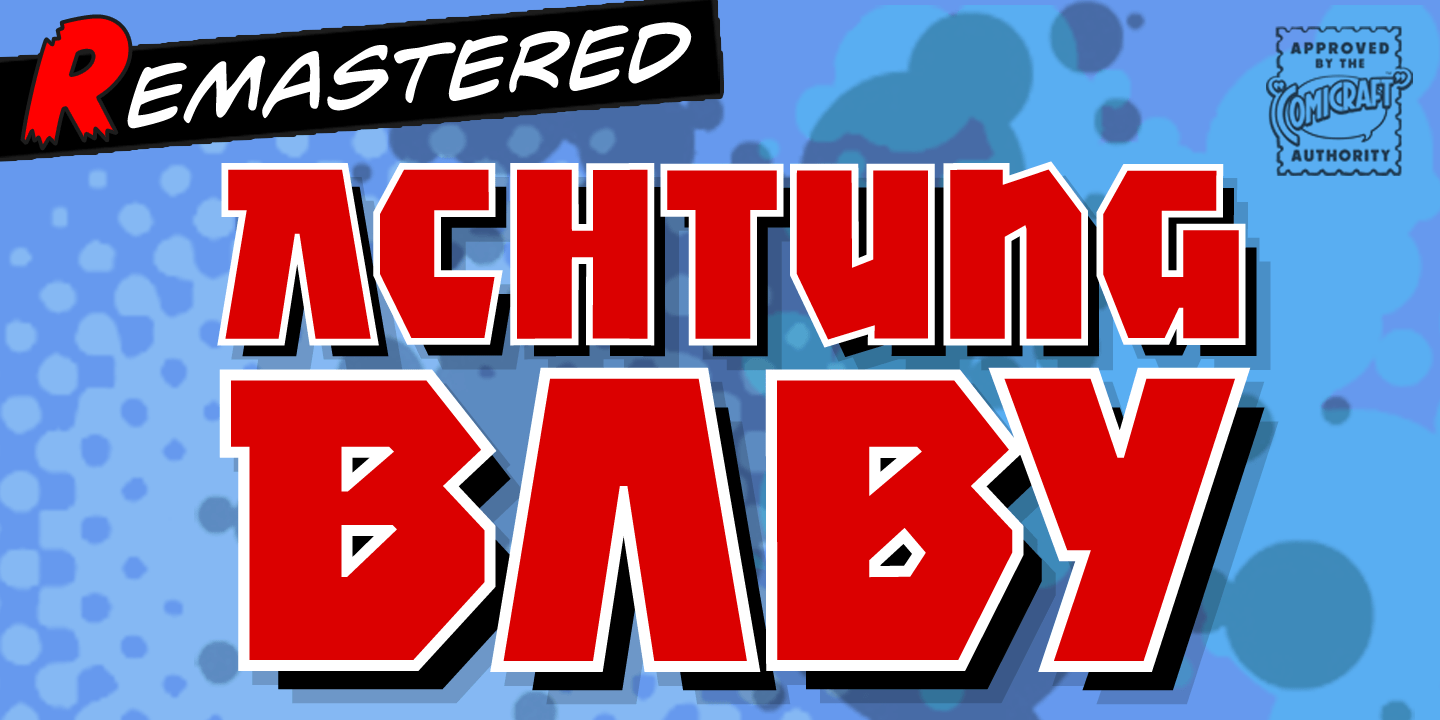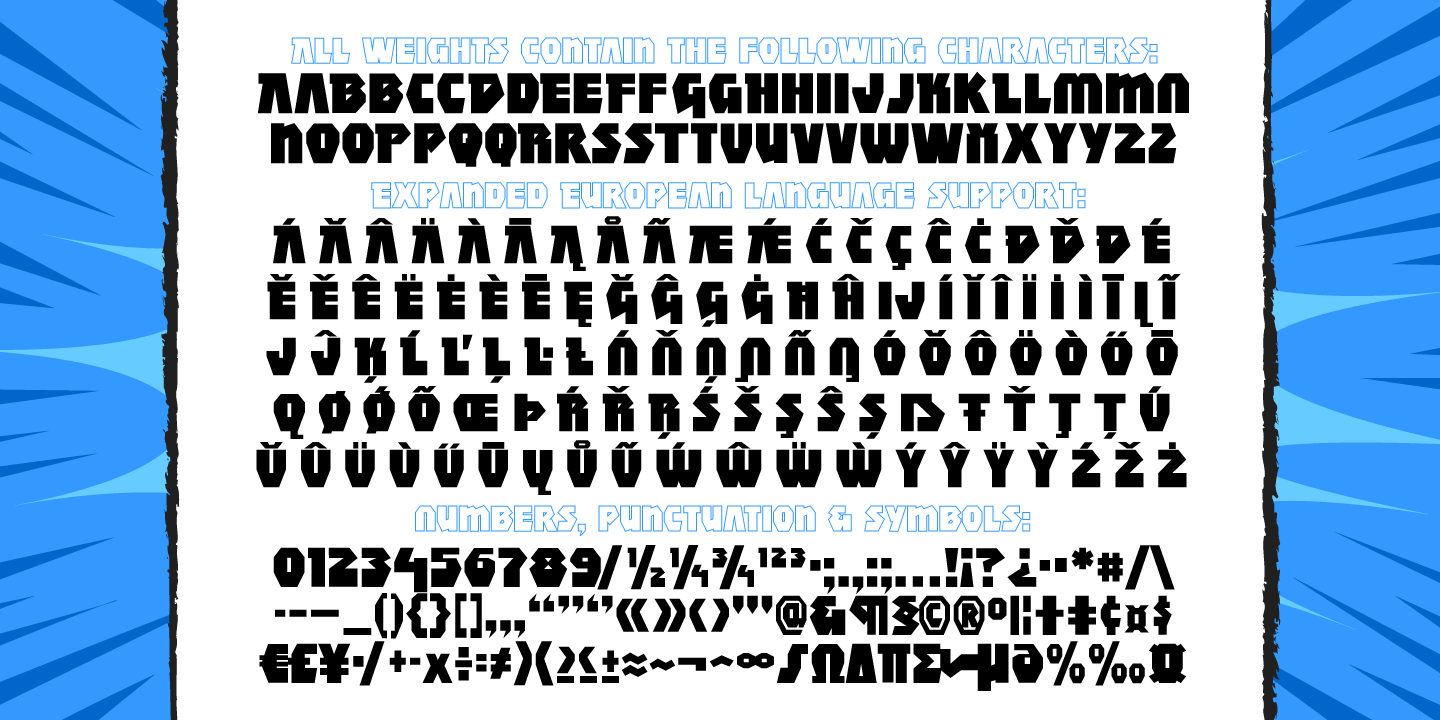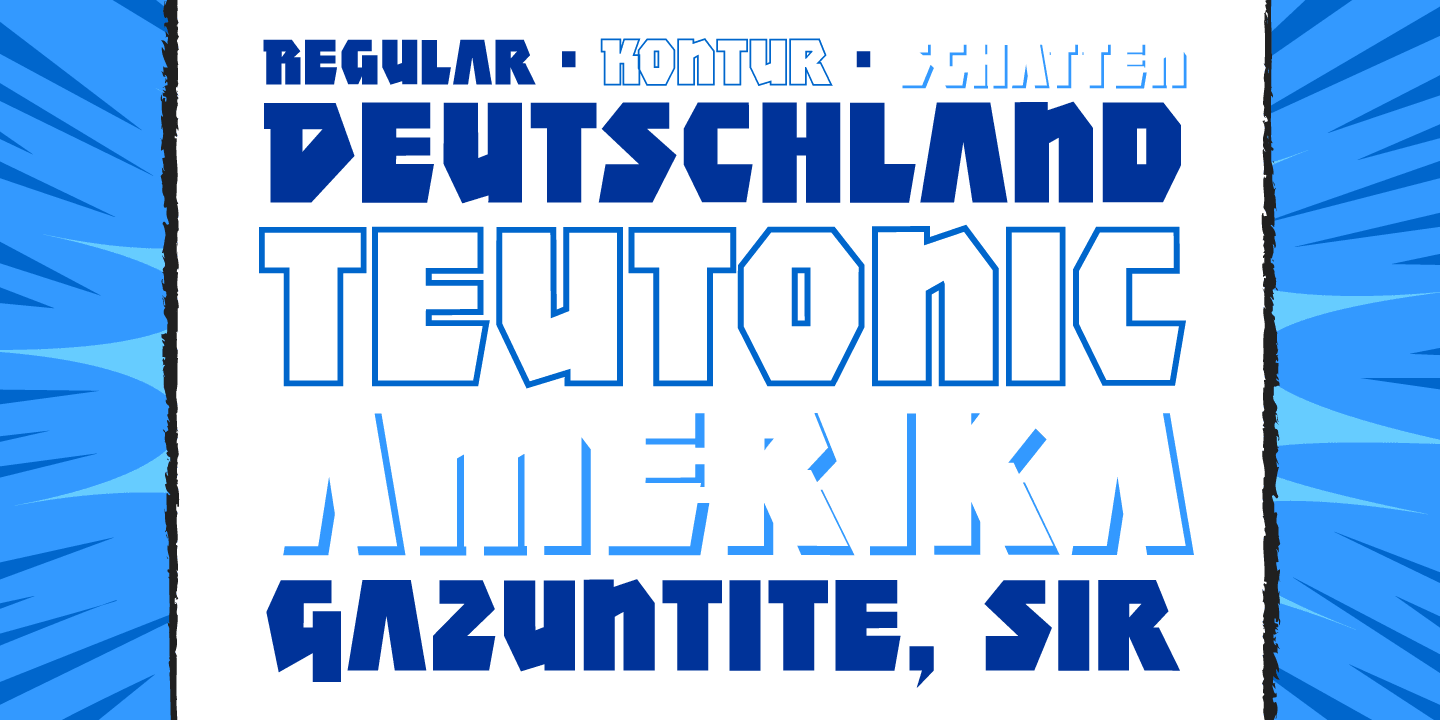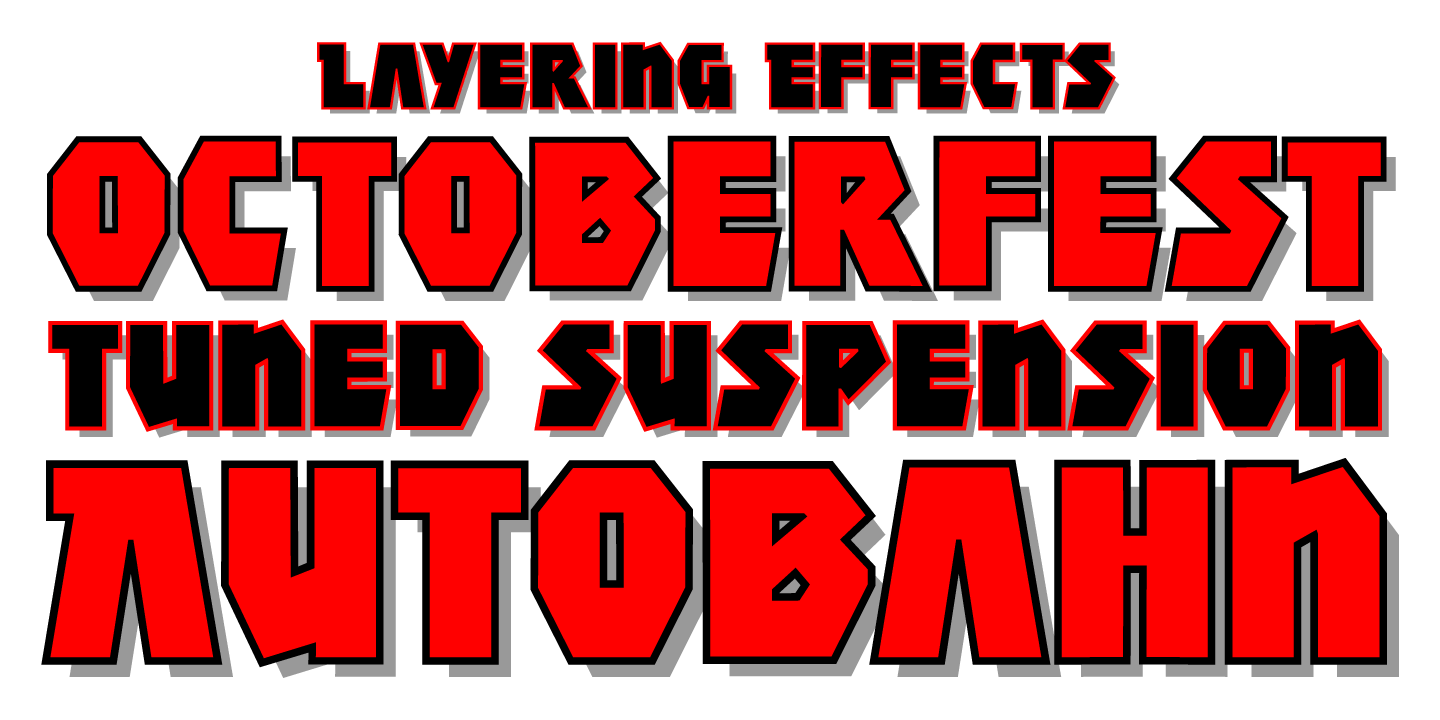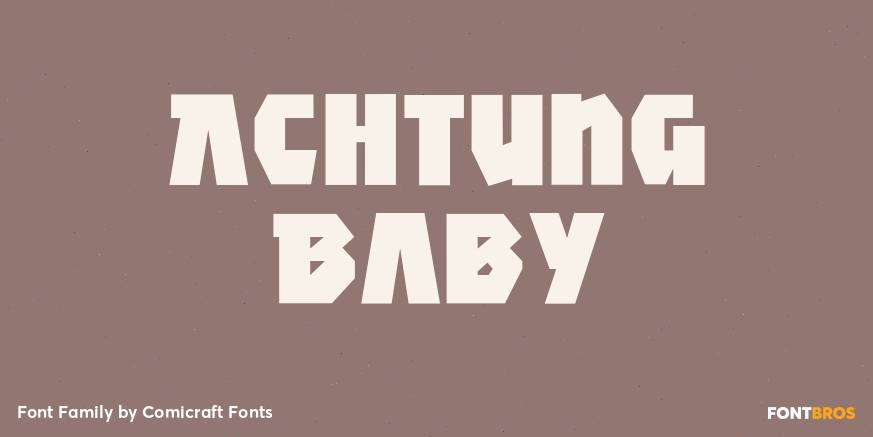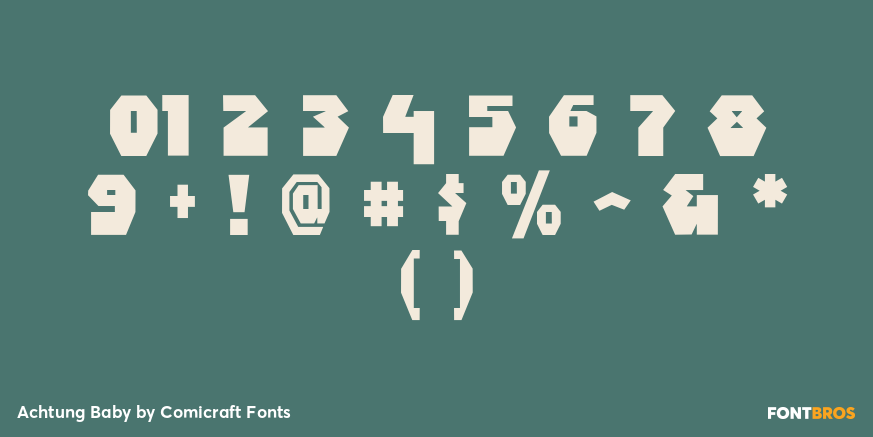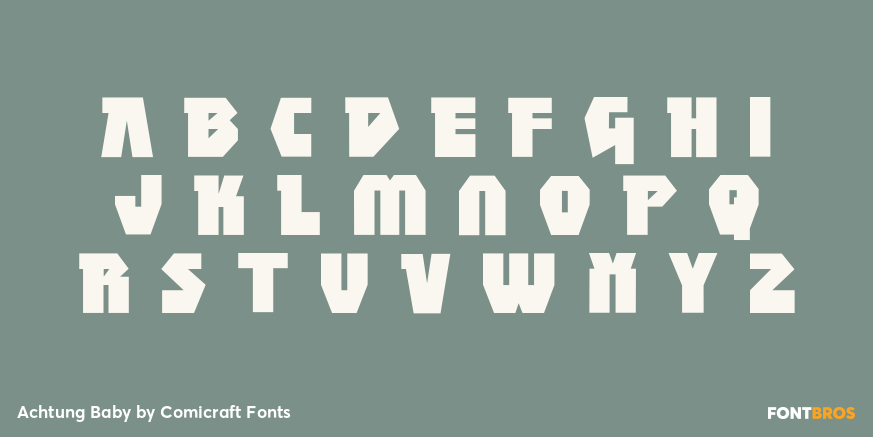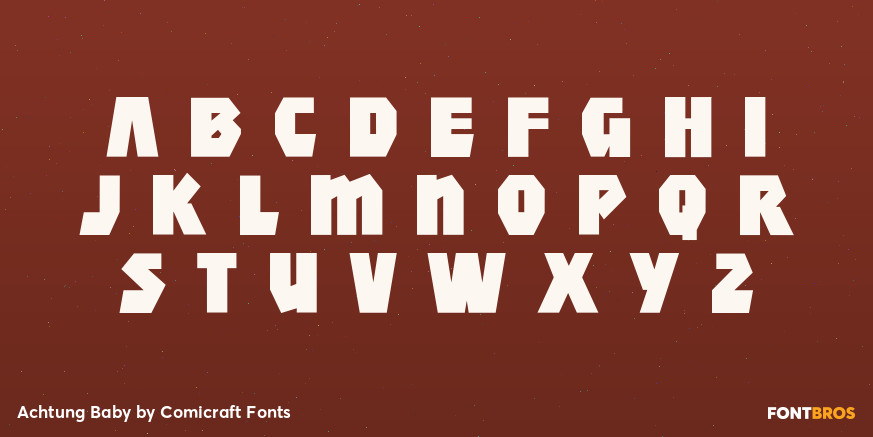
Achtung Baby
Font Family by Comicraft Fonts
Pull up your Jackboots and check out this Teutonic title font designed by Richard Starkings for Rob Liefeld's controversial relaunch of Marvel's CAPTAIN AMERICA.